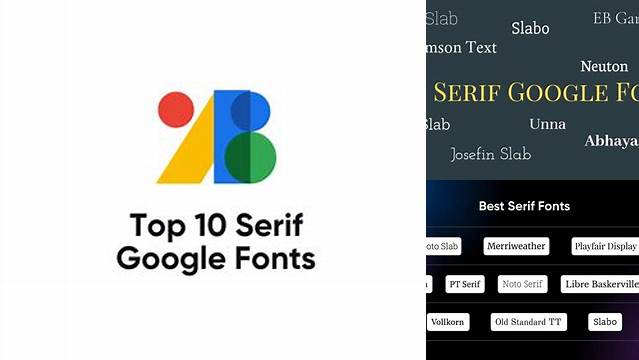
Top Serif Google Fonts For 2025: Expert Picks
Choosing the right font can make or break your design. In 2025, the world of web design continues to evolve, and selecting the best serif Google Fonts is more important than ever. This article dives deep into the top serif fonts you should consider to elevate your projects.
1. Timeless Appeal of Serif Fonts
Serif fonts have a timeless appeal that transcends generations. Best serif Google Fonts evoke feelings of tradition, reliability, and sophistication, making them ideal for projects that require an aura of authority. Think about prestigious newspapers, classic novels, and established brands – serif fonts are often their go-to choice. The small strokes or 'feet' at the end of each character give these fonts a distinct and readable quality, especially in large blocks of text. This readability is a crucial factor when selecting fonts for websites or documents that require prolonged reading, providing visual anchors that guide the reader's eye smoothly across the page. Moreover, the wide variety of serif fonts available on Google Fonts ensures that there's a perfect match for every project, whether you're aiming for a vintage feel or a modern, minimalist aesthetic. By understanding the historical context and the psychological impact of serif fonts, you can leverage their strengths to enhance the overall impact and effectiveness of your design. When choosing among the best serif Google Fonts, consider how the font's personality aligns with your brand's identity and the message you want to convey. A carefully selected serif font can contribute significantly to the perceived quality and trustworthiness of your content, establishing a solid foundation for your design.
2. Popular Serif Choices for Headlines
When it comes to headlines, the choice of serif font can significantly impact readability and visual appeal. Among the best serif Google Fonts, certain ones stand out due to their unique characteristics and suitability for grabbing attention. For instance, Playfair Display is a popular choice due to its elegant and high-contrast design, making headlines stand out with a touch of sophistication. Similarly, Merriweather is another excellent option known for its readability and slightly condensed letterforms, which allows for more text in a limited space without sacrificing clarity. These fonts not only enhance the visual hierarchy of your page but also contribute to the overall user experience. When selecting a serif font for headlines, consider the font's weight and spacing. A heavier weight can create a stronger visual impact, while proper letter spacing ensures that the headline remains legible even at larger sizes. Furthermore, it's essential to ensure that the chosen font complements the body text to maintain a cohesive and harmonious design. By carefully considering these factors, you can effectively leverage the best serif Google Fonts to create compelling headlines that draw readers in and encourage them to engage with your content. Exploring various font pairings and testing different combinations will help you find the perfect balance that aligns with your brand's identity and messaging, ultimately enhancing the effectiveness of your communication.
3. Best Serif Fonts for Body Text
Readability is paramount when selecting serif fonts for body text. Among the best serif Google Fonts, some are specifically designed to ensure a comfortable reading experience, even for extended periods. One such font is Lora, which features well-rounded serifs and a contemporary feel, making it easy on the eyes. Another excellent choice is Arvo, known for its slab-serif design and sturdy appearance, providing excellent legibility across various screen sizes. These fonts are optimized to minimize eye strain and enhance comprehension, crucial for engaging readers with your content effectively. When choosing a serif font for body text, consider factors such as x-height, letter spacing, and contrast. A taller x-height improves readability by making the lowercase letters more distinct, while adequate letter spacing prevents the text from appearing cramped. Additionally, moderate contrast ensures that the letters are clear without being too harsh on the eyes. It's also important to ensure that the chosen font complements the headline font, creating a cohesive visual hierarchy that guides the reader through the content. By carefully considering these factors, you can leverage the best serif Google Fonts to create body text that is both visually appealing and highly readable, ensuring that your message is effectively communicated. Testing the font on different devices and screen resolutions will further ensure optimal readability for all users, enhancing the overall user experience.
4. Modern Serif Fonts to Watch
In 2025, modern serif fonts are blending tradition with contemporary design, offering versatile options for a wide range of projects. Among the best serif Google Fonts, several stand out for their unique characteristics and innovative approaches. Montserrat, while technically a sans-serif, often pairs beautifully with modern serifs to create a sophisticated contrast. Libre Baskerville is another excellent choice, known for its refined details and classic appeal, making it suitable for both headlines and body text. These fonts reflect the evolving trends in typography, where clean lines and subtle details are combined to create a fresh and modern aesthetic. When exploring modern serif fonts, consider the font's overall personality and how it aligns with your brand's identity. A font with clean lines and a minimalist design can convey a sense of sophistication and modernity, while a font with more decorative elements can add a touch of elegance and personality. It's also important to consider the font's versatility and how well it adapts to different design contexts. By carefully selecting modern serif fonts, you can create designs that are both visually appealing and contemporary, reflecting the latest trends in typography. Experimenting with different font pairings and exploring various design applications will help you discover the unique potential of these best serif Google Fonts, allowing you to create memorable and impactful visual experiences.
5. Pairing Serif Fonts with Sans-Serif
The art of font pairing involves creating a harmonious balance between different typefaces. Pairing serif fonts with sans-serif fonts is a common and effective technique to enhance readability and visual interest. Among the best serif Google Fonts, some work particularly well with specific sans-serif fonts, creating a cohesive and professional look. For instance, pairing Roboto (a popular sans-serif) with Montserrat or Lora can create a balanced contrast, where the clean lines of Roboto complement the elegant serifs of Montserrat or Lora. This combination provides clarity and visual appeal, making it ideal for websites, documents, and marketing materials. When pairing serif and sans-serif fonts, consider the font's weight, style, and overall personality. A heavier serif font can be paired with a lighter sans-serif font to create a visual hierarchy, while a more decorative serif font can be paired with a simpler sans-serif font to avoid overwhelming the design. It's also important to ensure that the chosen fonts complement each other in terms of their historical context and design aesthetic. By carefully selecting font pairings, you can create designs that are both visually appealing and highly readable, enhancing the overall user experience. Experimenting with different combinations and testing them on various devices will help you find the perfect balance that aligns with your brand's identity and messaging, ultimately creating a cohesive and impactful visual communication.